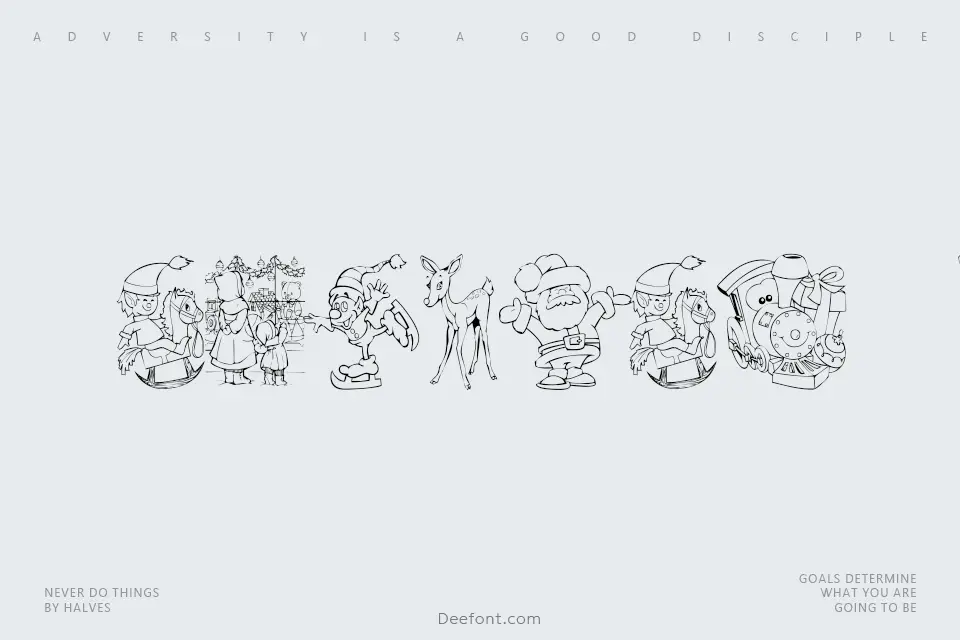
KR Christmas Color Me Font
The KR Christmas Color Me font is a festive display typeface designed by Kat’s Fun Fonts, perfect for adding a playful and seasonal touch to your holiday-themed projects. With whimsical illustrations and hand-drawn letters reminiscent of coloring book art, this font brings joy and creativity to cards, invitations, decorations, and digital graphics. Its bold and decorative style is ideal for making Christmas designs pop. However, please note that this font is free for personal use only and requires proper licensing for commercial purposes.